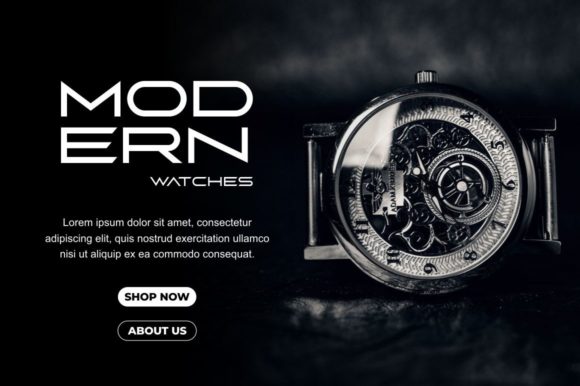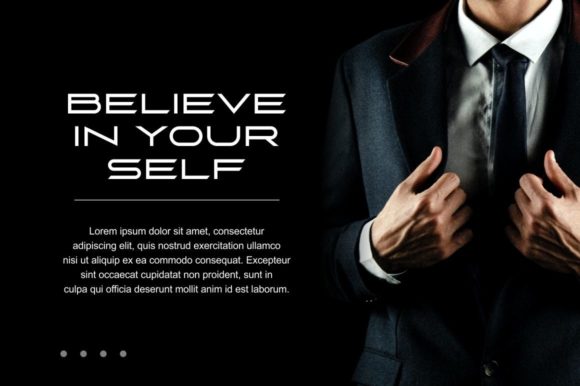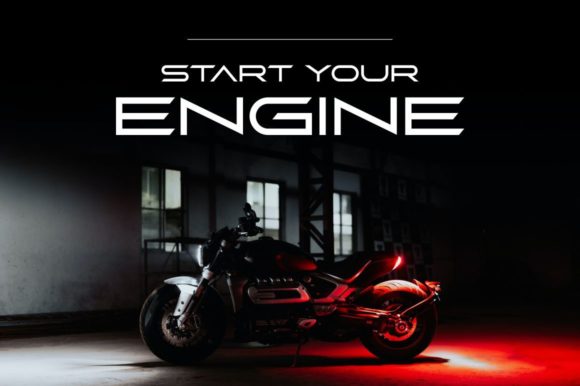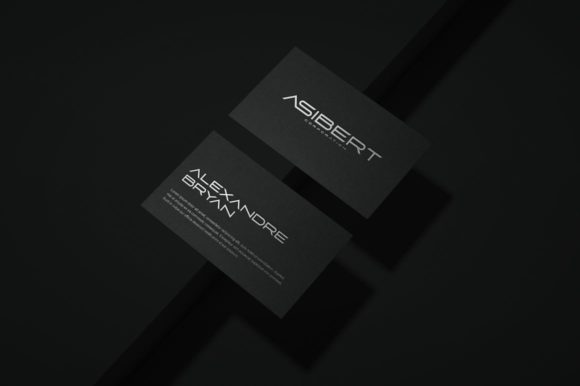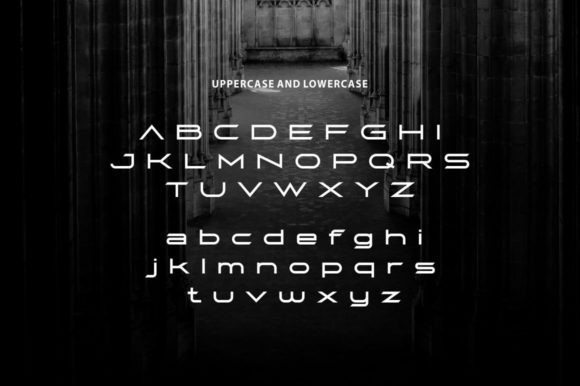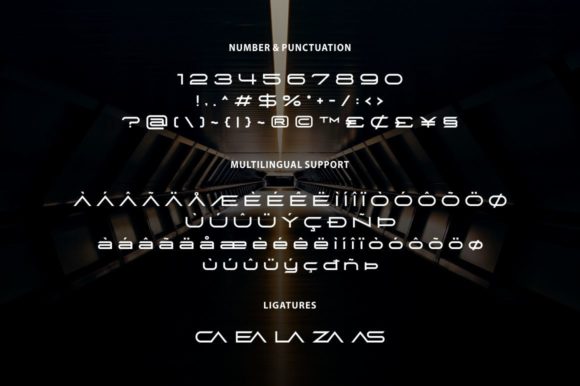
Introducing Beasigne Font: The Ultimate Modern Display Font for Futuristic Designs
In the world of digital design, typography plays a crucial role in conveying the message and tone of a project. When it comes to creating futuristic and high-tech designs, the right font can make all the difference. This is where Beasigne Font comes in – a modern display font designed to add a touch of innovation and sophistication to your designs.
What is Beasigne Font?
Beasigne is a high-tech and modern display font that is ideal for writing web designs, business cards, or pretty much anything else that requires a futuristic touch. This font is perfect for designers and crafters who want to add a sleek and contemporary feel to their projects. With its clean lines, geometric shapes, and minimalist approach, Beasigne Font is sure to impress.
Key Features of Beasigne Font
- Modern and Futuristic Design: Beasigne Font boasts a modern and futuristic design that is perfect for creating cutting-edge designs.
- High-Tech Look and Feel: The font’s high-tech look and feel make it ideal for use in web designs, business cards, and other digital projects.
- Clean Lines and Geometric Shapes: The font’s clean lines and geometric shapes give it a sleek and sophisticated look that is sure to impress.
- Minimalist Approach: Beasigne Font’s minimalist approach makes it easy to use and versatile enough to be paired with a wide range of other fonts and design elements.
Use Cases for Beasigne Font
Beasigne Font is a versatile font that can be used in a variety of design projects, including:
- Web Designs: Use Beasigne Font to create modern and futuristic web designs that are sure to impress your clients and visitors.
- Business Cards: Add a touch of sophistication and innovation to your business cards with Beasigne Font.
- Digital Marketing Materials: Use Beasigne Font to create eye-catching digital marketing materials, such as brochures, flyers, and social media graphics.
- Presentations and Slideshows: Add a professional and modern touch to your presentations and slideshows with Beasigne Font.
Benefits of Using Beasigne Font
Using Beasigne Font in your design projects offers a range of benefits, including:
- Unique and Modern Look: Beasigne Font gives your designs a unique and modern look that is sure to stand out from the crowd.
- Improved Legibility: The font’s clean lines and geometric shapes make it easy to read, even at small sizes.
- Versatility: Beasigne Font is a versatile font that can be used in a wide range of design projects, from web designs to business cards.
- Time-Saving: With Beasigne Font, you can create professional-looking designs in no time, saving you time and effort.
Tips for Using Beasigne Font
Here are some tips for using Beasigne Font in your design projects:
- Pair it with Other Fonts: Beasigne Font pairs well with a wide range of other fonts, so don’t be afraid to experiment and find the perfect combination for your design.
- Use it in Headings and Titles: Beasigne Font is perfect for use in headings and titles, where its modern and futuristic design can really shine.
- Experiment with Colors and Textures: Don’t be afraid to experiment with different colors and textures to add depth and interest to your designs.
In conclusion, Beasigne Font is a high-tech and modern display font that is perfect for designers and crafters who want to add a touch of innovation and sophistication to their designs. With its clean lines, geometric shapes, and minimalist approach, Beasigne Font is sure to impress. Whether you’re creating web designs, business cards, or digital marketing materials, Beasigne Font is a versatile and professional font that is sure to deliver.